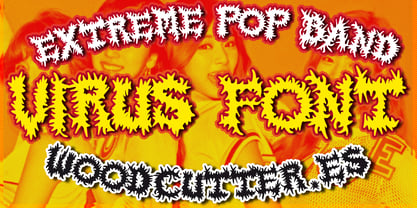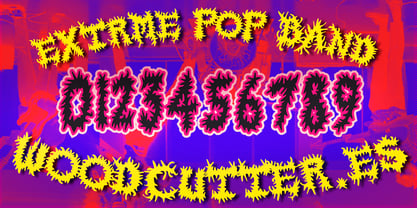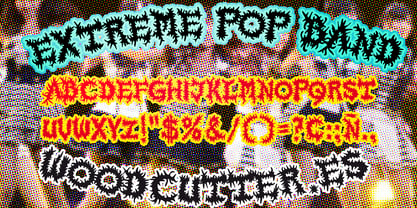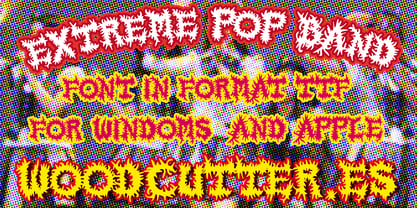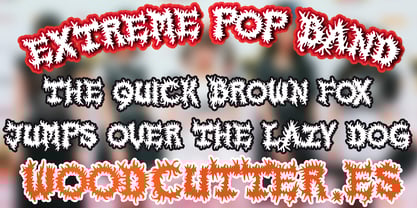
Extreme Pop Band
by Woodcutter
The Extreme Pop Band Font Family was designed by Jordi Manero and published by Woodcutter. Extreme Pop Band contains 1 styles. More about this family
"Extreme Pop Band" is an uppercase font with a chaotic and dark design, as if each letter were infected by a virus. The shapes are irregular, with tentacles extending from the edges of the letters, giving them a sinister and visceral appearance. Inspired by extreme metal band fonts, this typeface conveys aggression and overflowing energy, perfect for projects related to heavy music, horror, or underground aesthetics. Its dynamic and disturbing design grabs attention, making it ideal for logos, album covers, or posters seeking to stand out with an extreme edge.